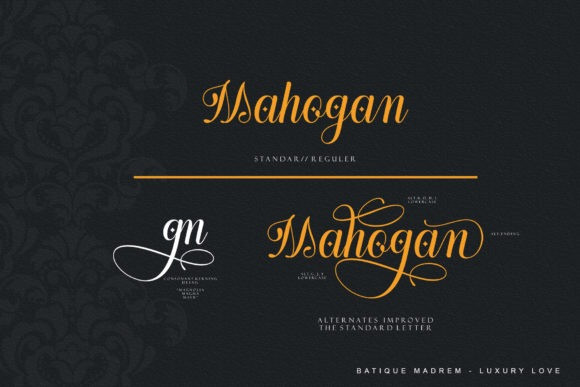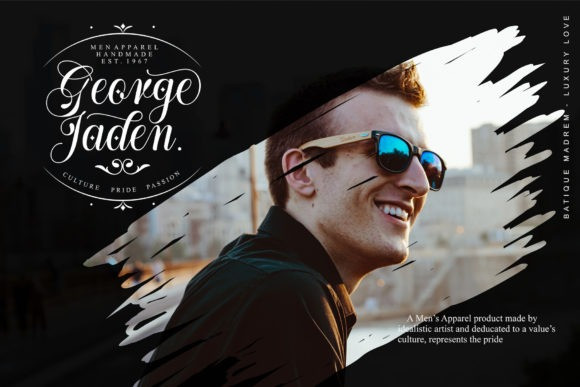
Batique Madrem Font
Batique Madrem Script Font is a beautiful and refined script font. It has a classy, elegant, and classic look. You can use it for logos, branding, invitations, stationery, wedding designs, social media posts, and more! It will add a luxury spark to any design project that you wish to create!